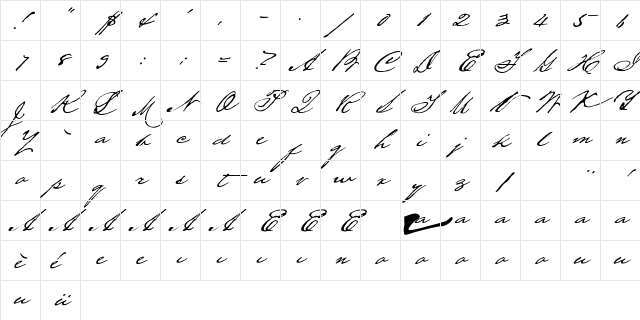
Complete HoustonPen Regular glyph index. Displaying only characters natively supported by HoustonPen Regular font.
HoustonPen is a composed and adaptable typeface that performs quietly and consistently across a wide range of design contexts.